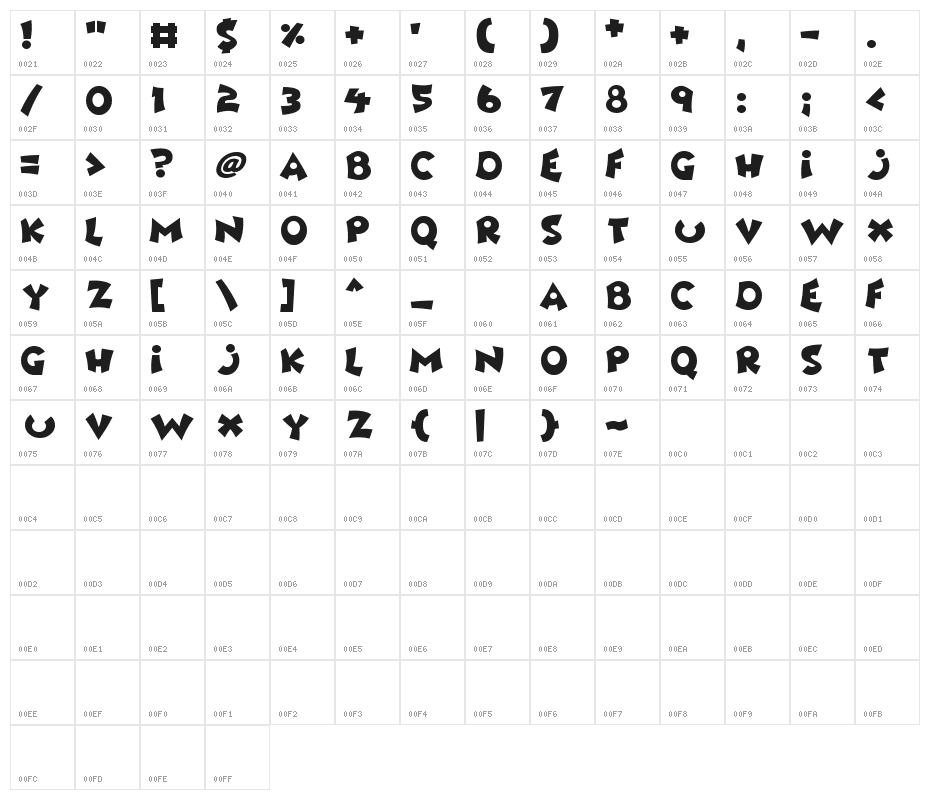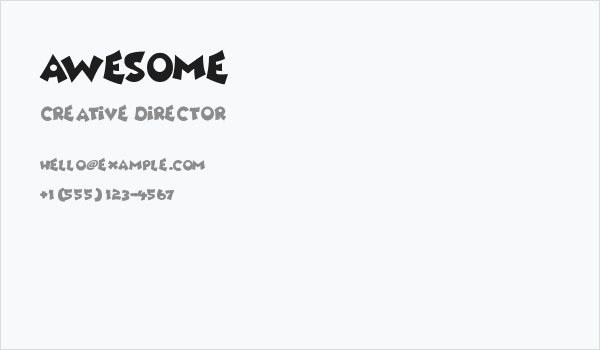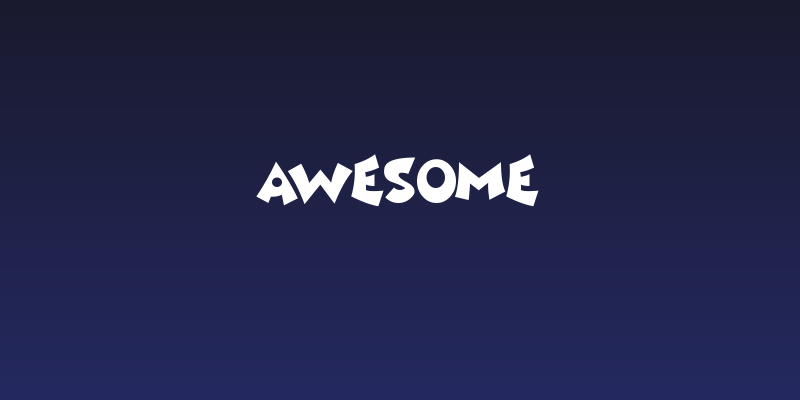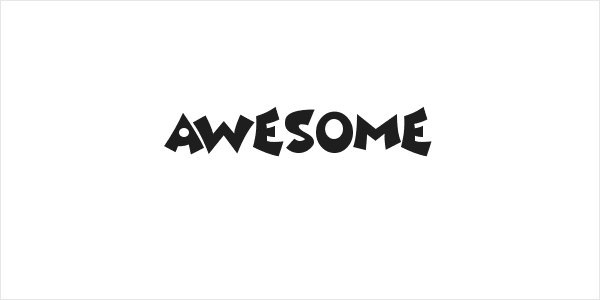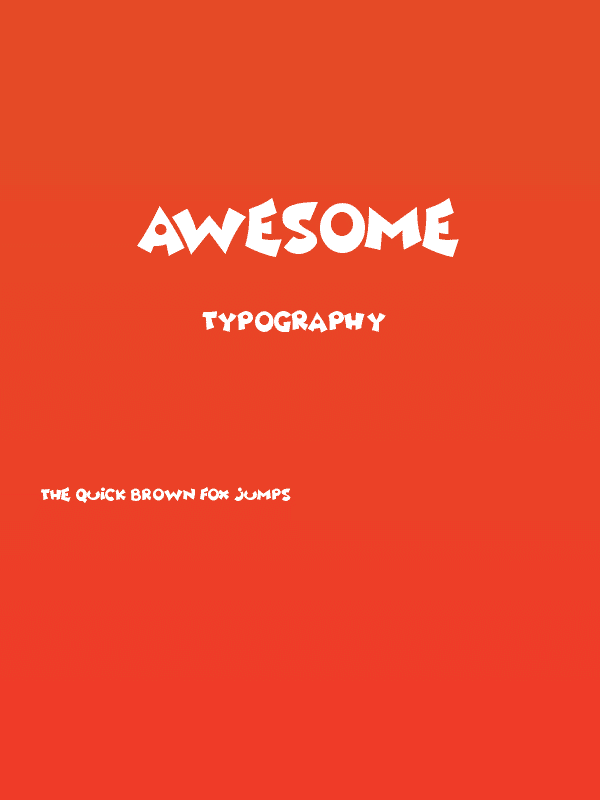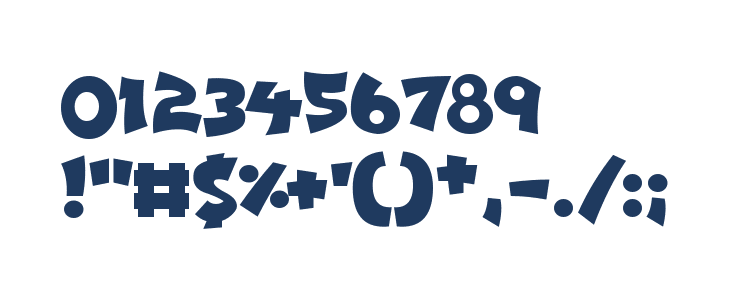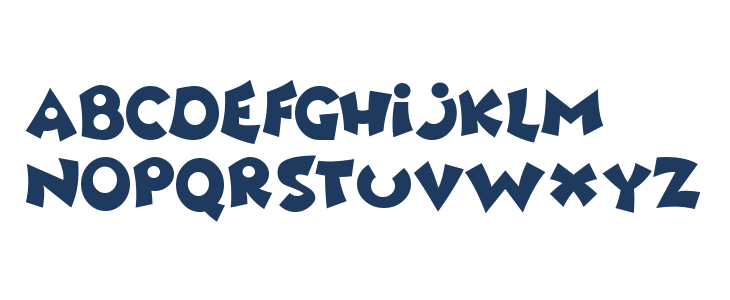
Awesome Font
Awesome Description
This font features a playful and bold design, characterized by its exaggerated curves and whimsical shapes. The letters are thick and have a dynamic, almost cartoonish appearance, making them stand out with a lively and energetic vibe. The uppercase and lowercase letters maintain a consistent style, with rounded edges and a slightly irregular form that adds to the font's charm. The numbers and special characters follow the same playful theme, ensuring a cohesive look across all elements. This font is perfect for projects that require a fun and engaging aesthetic.